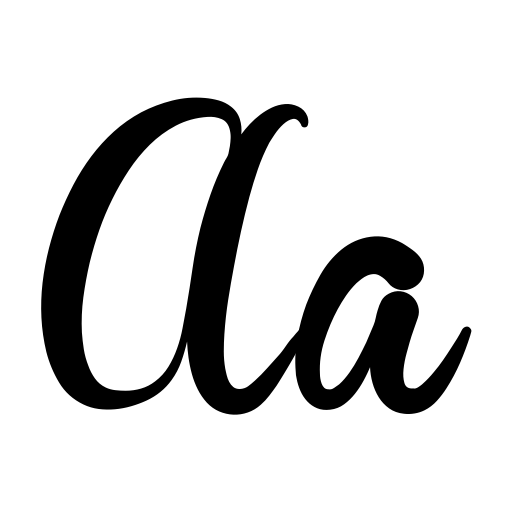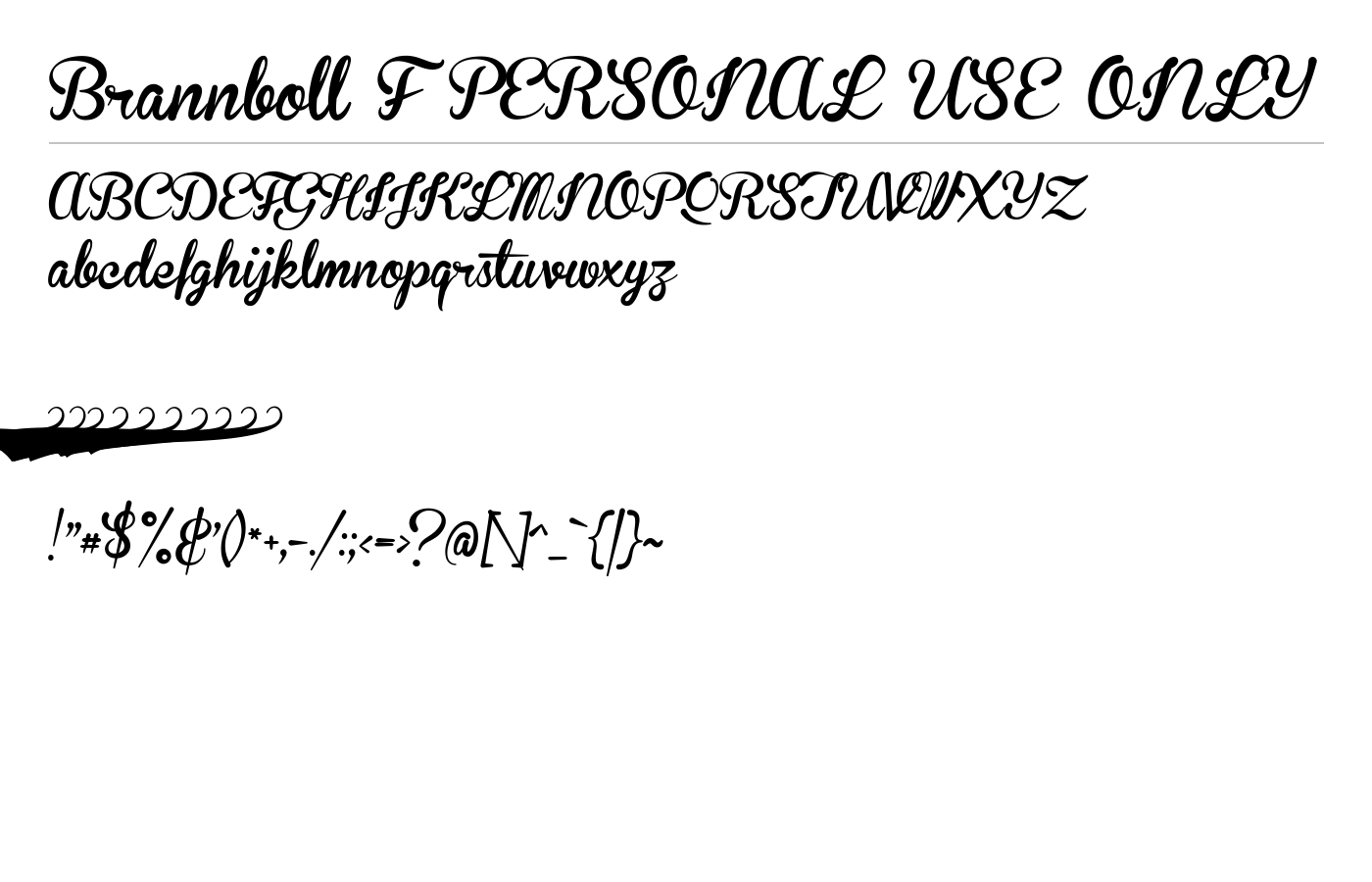
Brannboll F is an elegant script font featuring smooth, flowing strokes with a moderate contrast that gives it a graceful and somewhat playful character. Its cursive letterforms, including single-story a and distinctive uppercase swashes, make it ideal for inviting, personal designs such as invitations, branding, and decorative headlines. This font works best where a stylish, handcrafted feel is desired to convey warmth and sophistication.
About Brannboll F PERSONAL USE ONLY Font